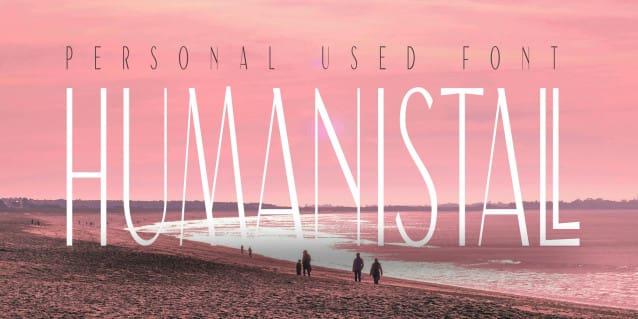
Humanistall Font
Humanistall Font, is a sans serif  stunning when combined or separately. This sans serif font style is legible and stunningly designed.